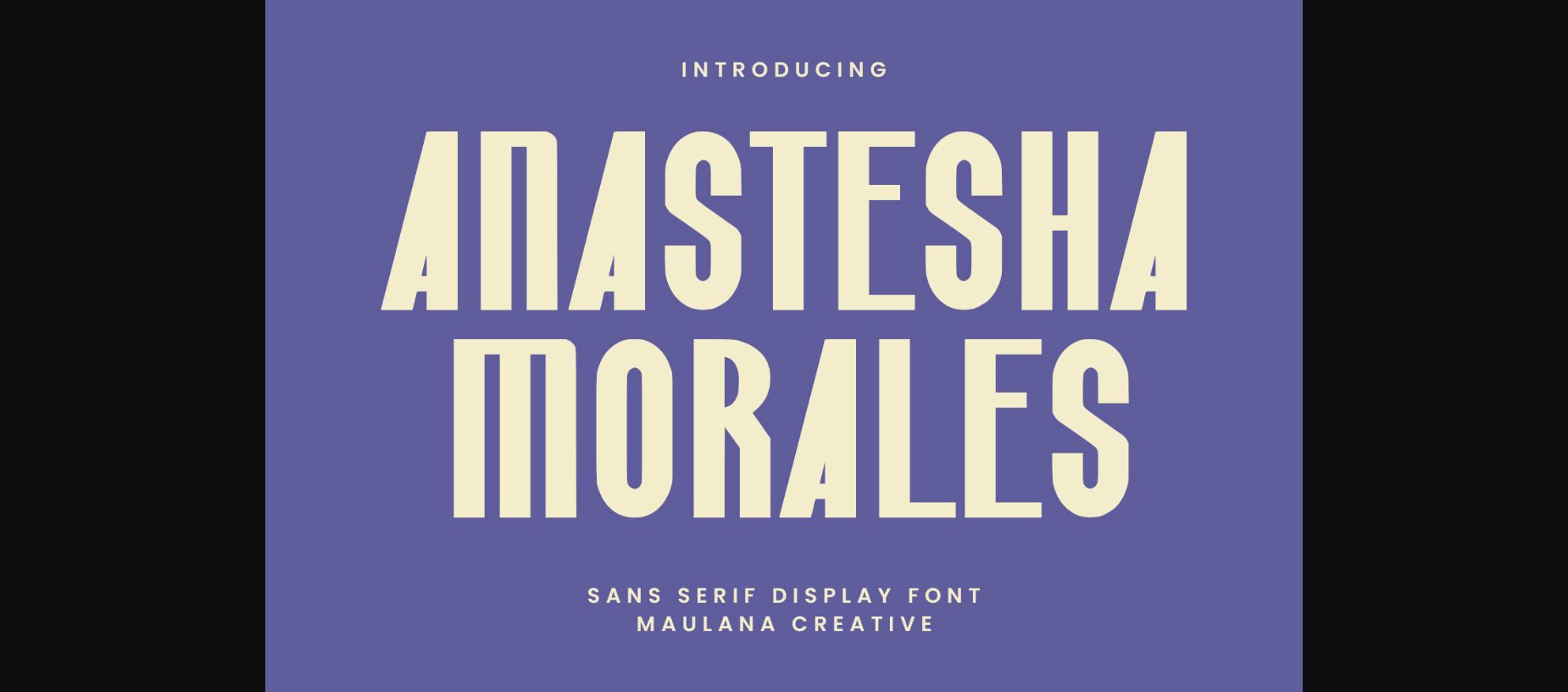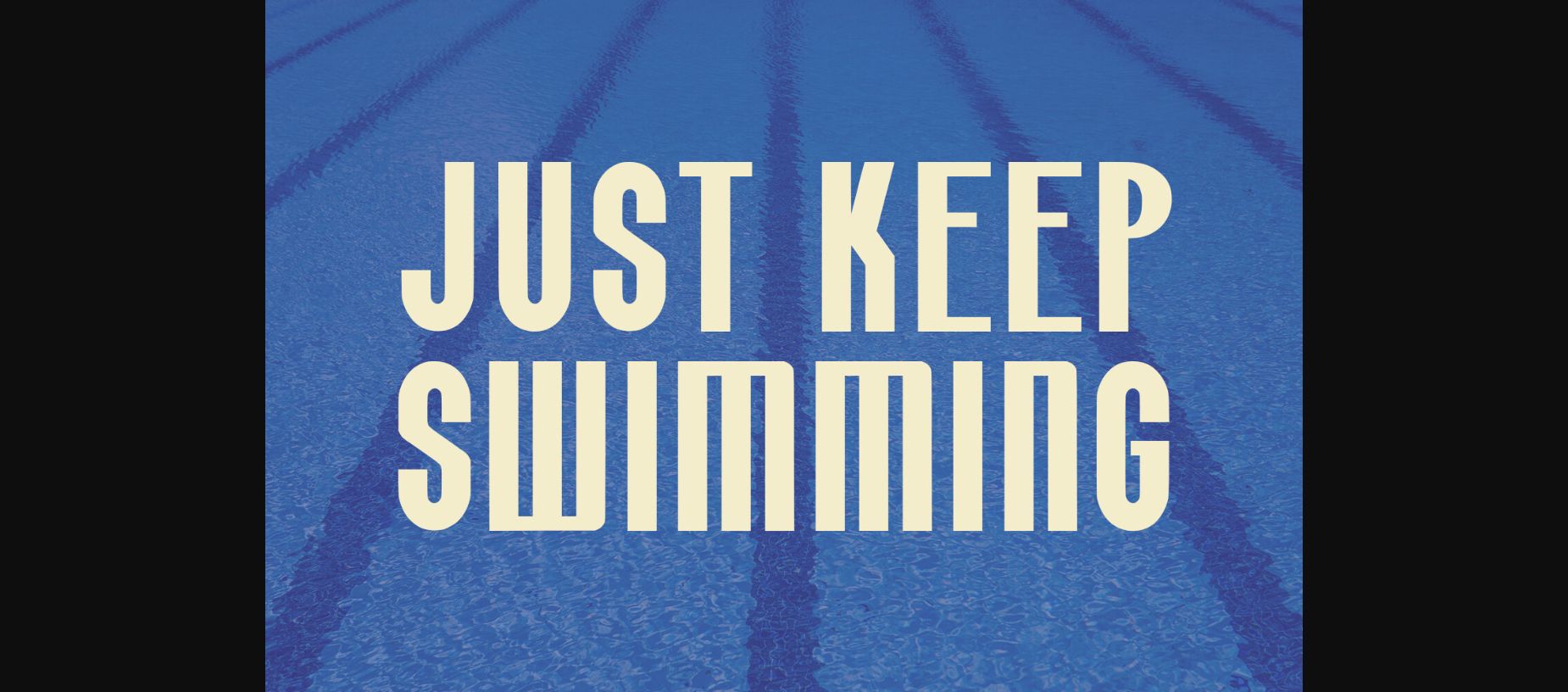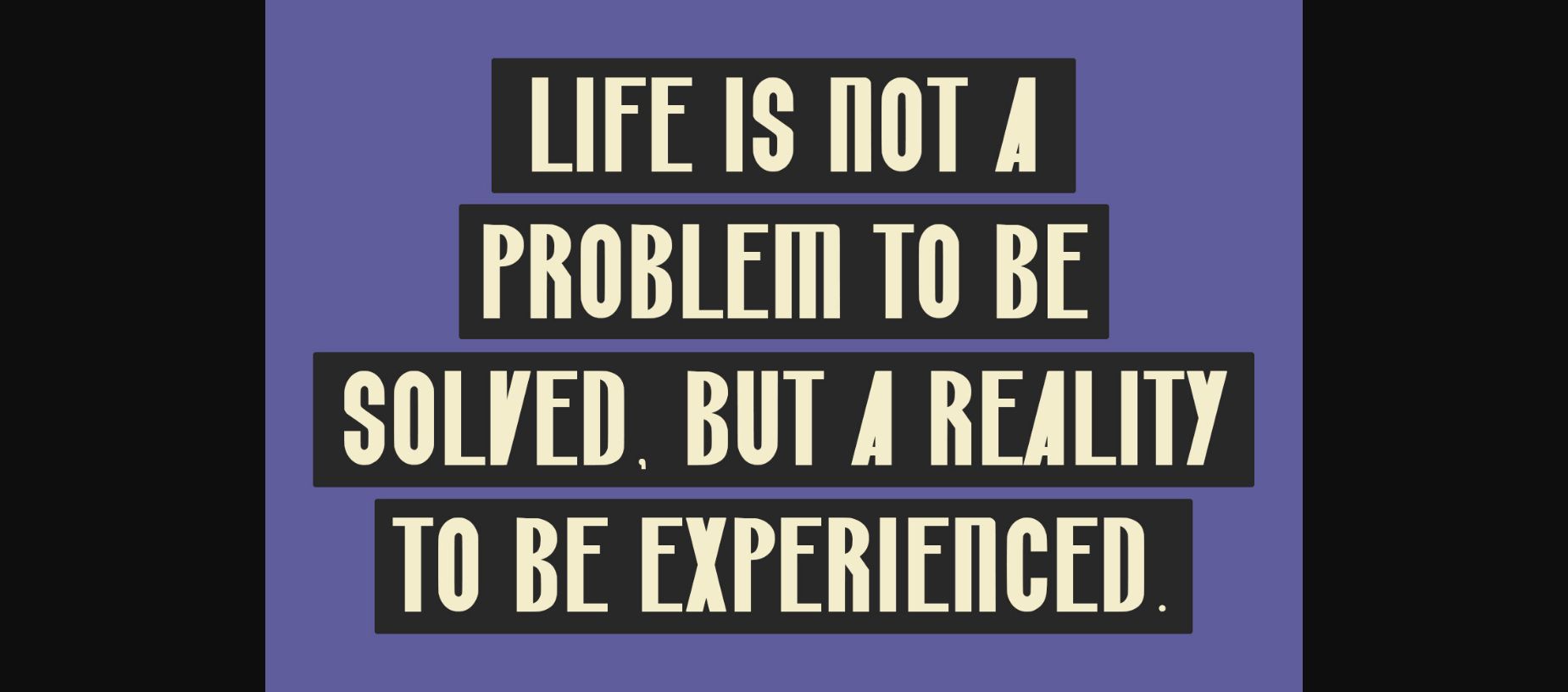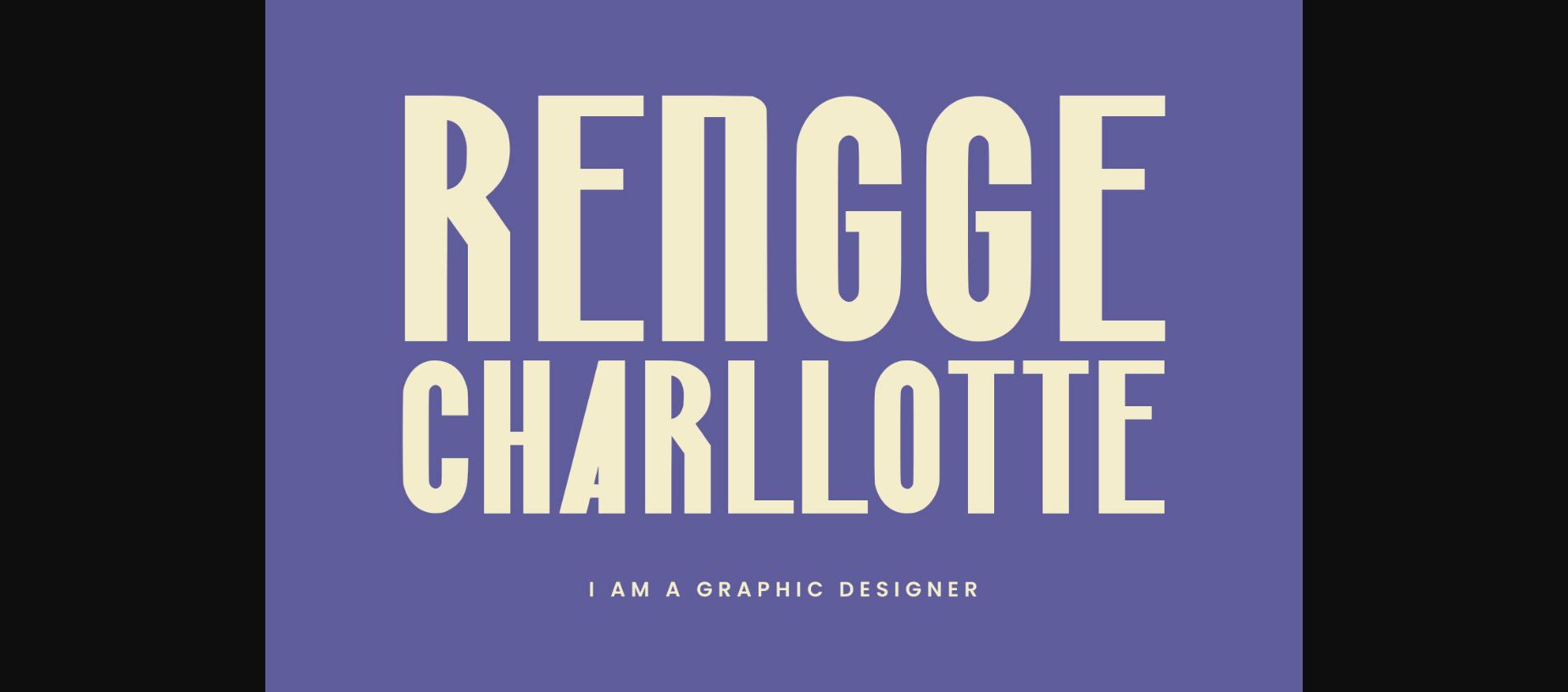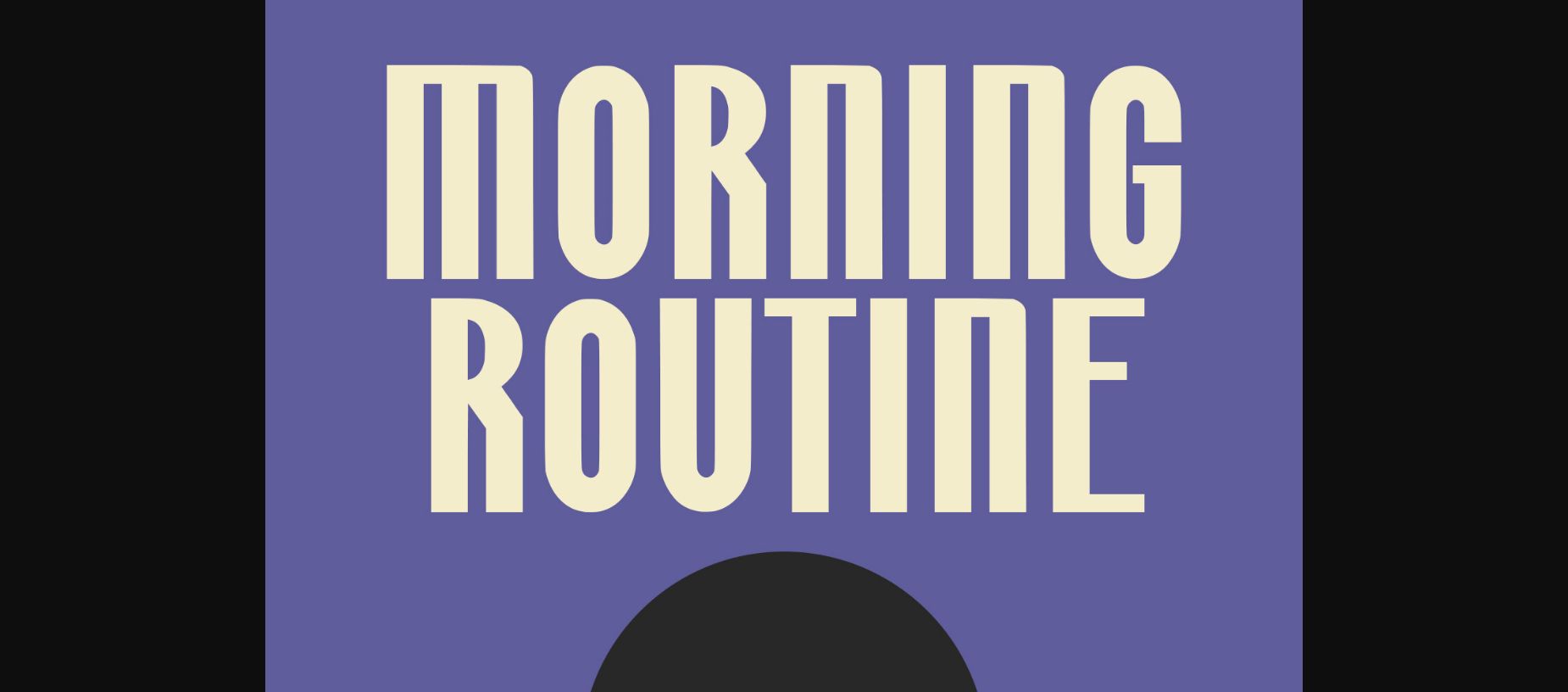
About Anastesha Morales Font
Introducing Anastesha Morales: a clear, bold sans serif display font. Perfect for making your text stand out with its simple yet impactful style. Whether itβs titles, headers, or branding, this font adds a touch of modern elegance to your designs.